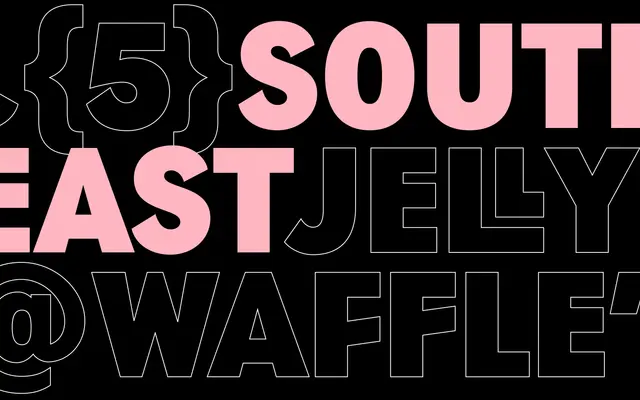
South East Condensed
A condensed sans-serif display typeface from Copenhagen foundry Playtype.
South East Condensed is a condensed sans from Playtype, the Copenhagen-based foundry known for clean, editorial type design. The condensed format suits headline and display work where space is constrained but typographic presence is required. Limited information is available from the product page.
The name and condensed designation suggest a compressed grotesque or display sans; the page content is filler copy and provides no direct classification detail, but the typeface name implies a condensed sans-serif display cut.